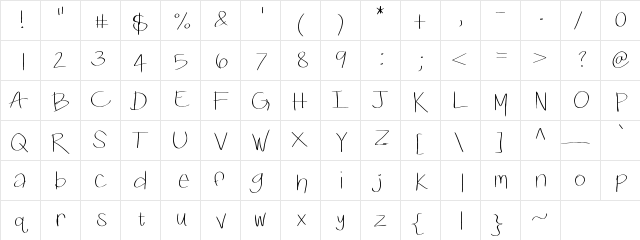
KBSwiftly Medium
Design Context for KBSwiftly Typeface
KBSwiftly is a composed and adaptable typeface that performs quietly and consistently across a wide range of design contexts.
Pro Tip: Use KBSwiftly in both headline and body roles to test its range before committing to a single application.